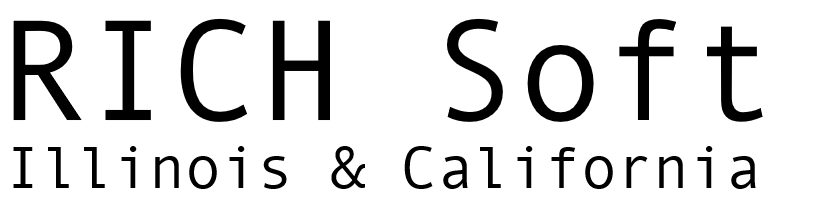
Andale Mono is a highly legible monospaced font designed with the needs of terminal emulation and software development environments. Yes, this font was originally distributed as part of the Internet Explorer 4.0 add-ons page as Monotype.com. We've decided to revert to the font's original name, Andale.
Designers | Steven R. Matteson |